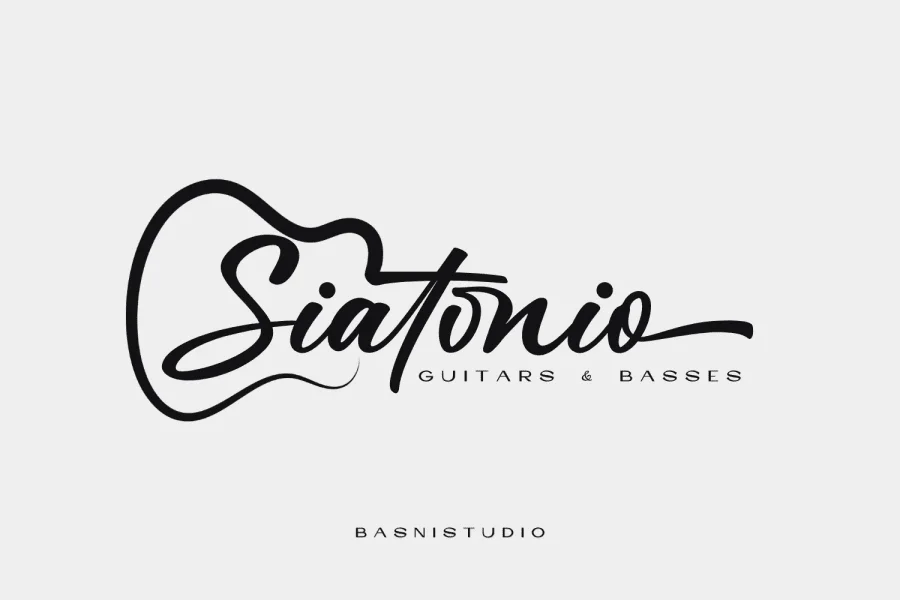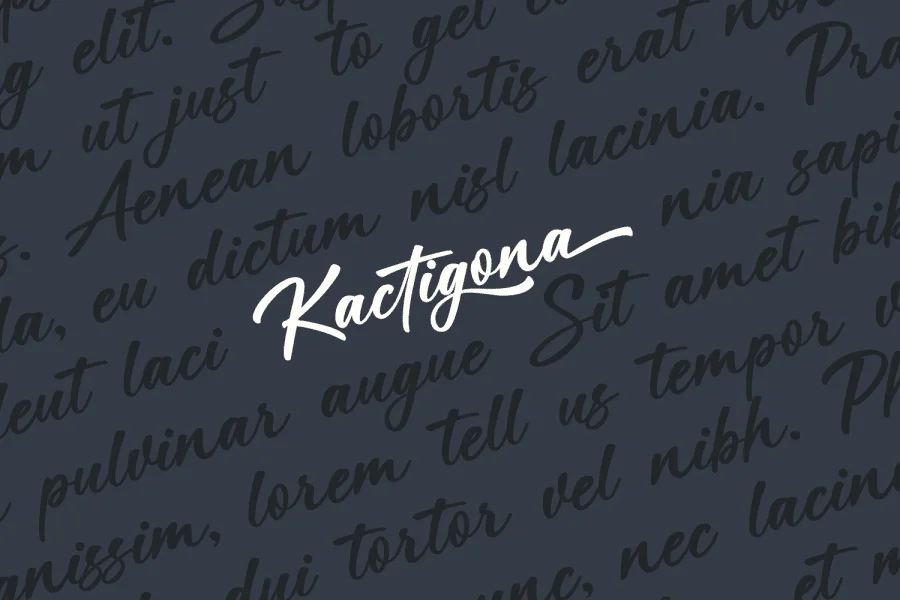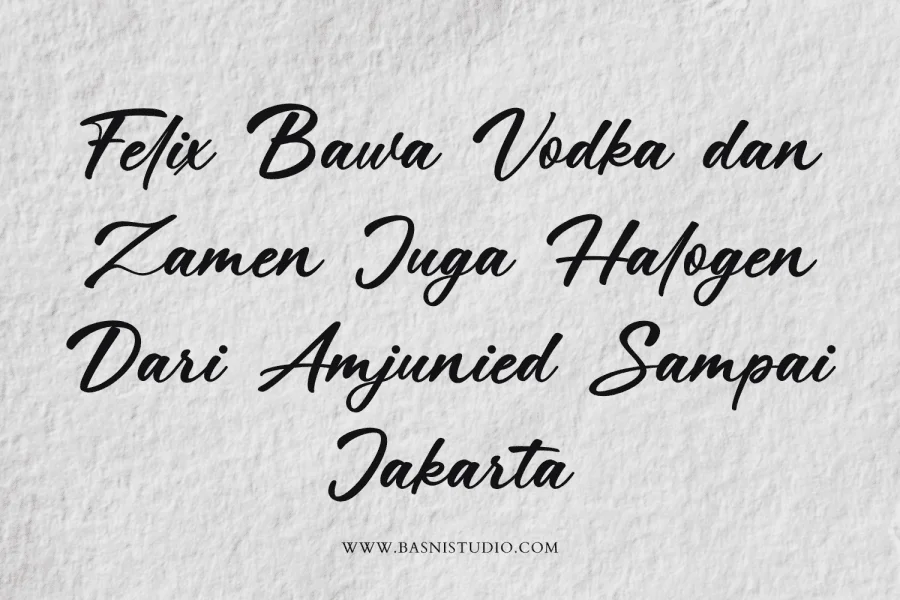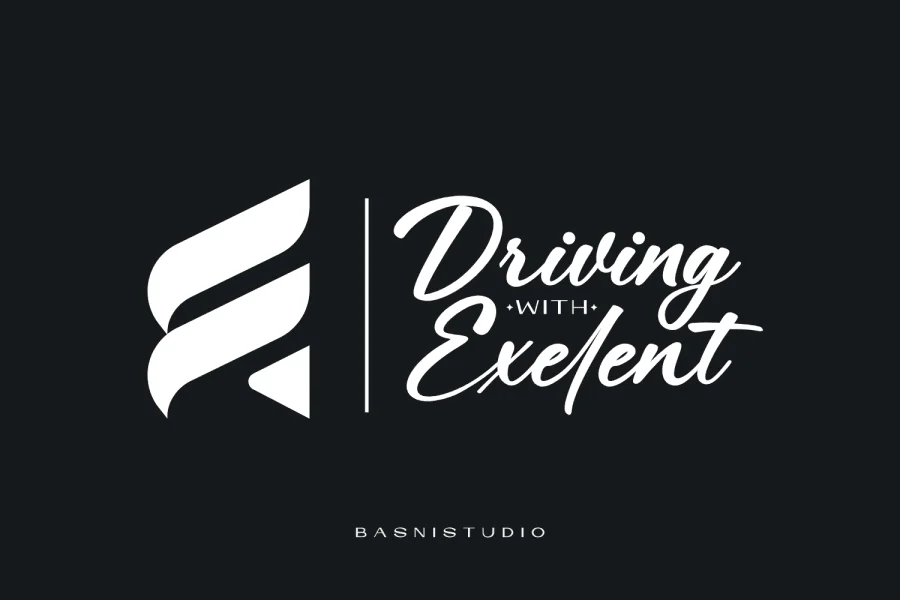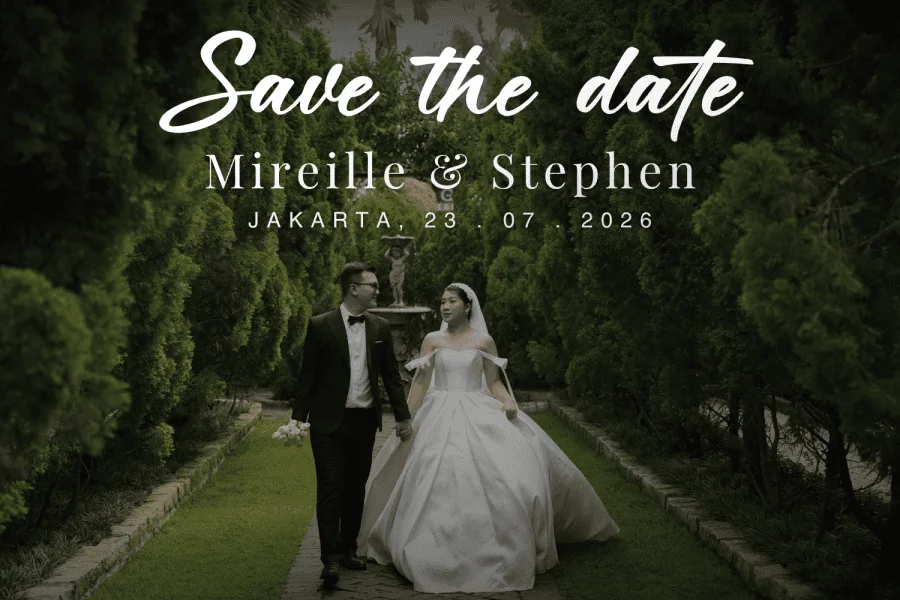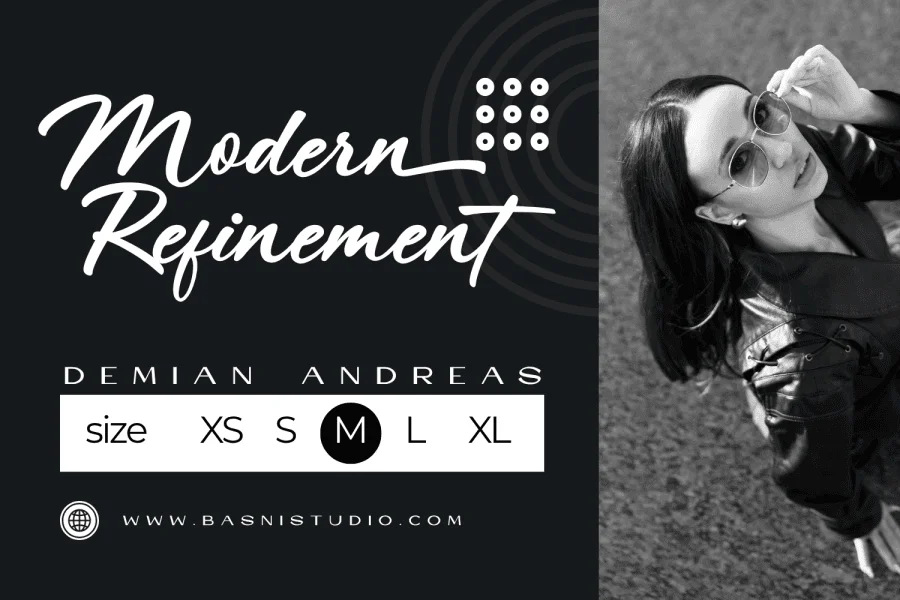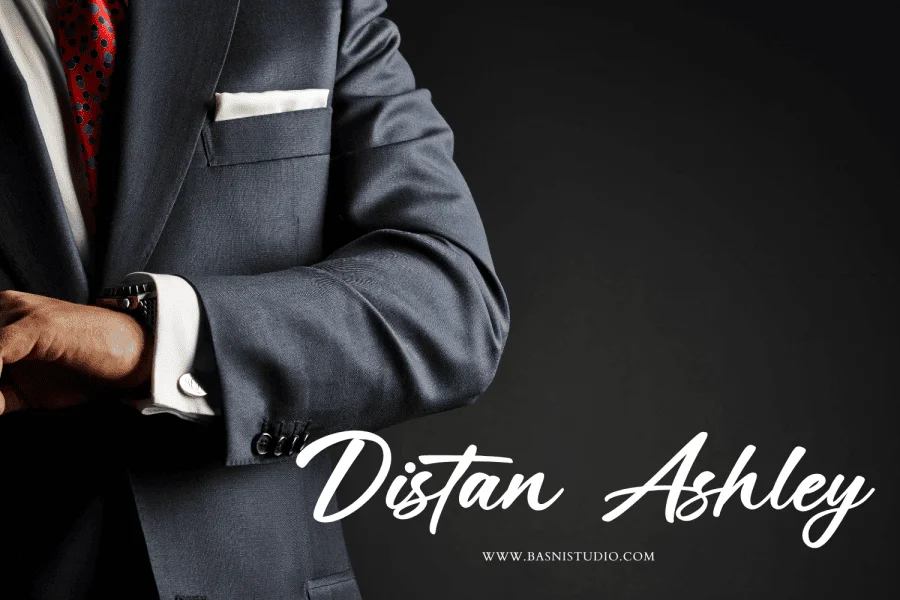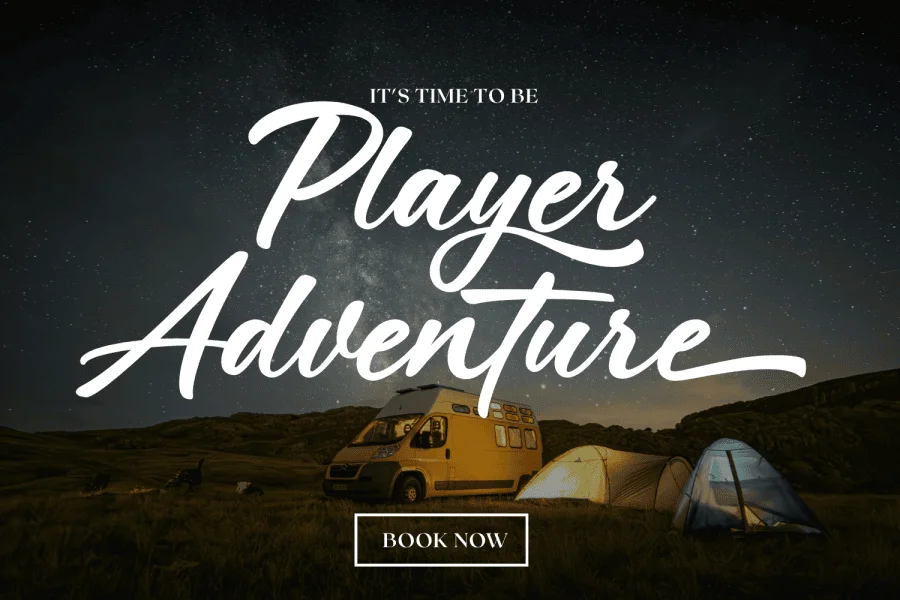
Kactigona Bold handwritten font crafted with authentic Brush for Natural & Bold touch for everything from branding and social media to invitations and packaging.